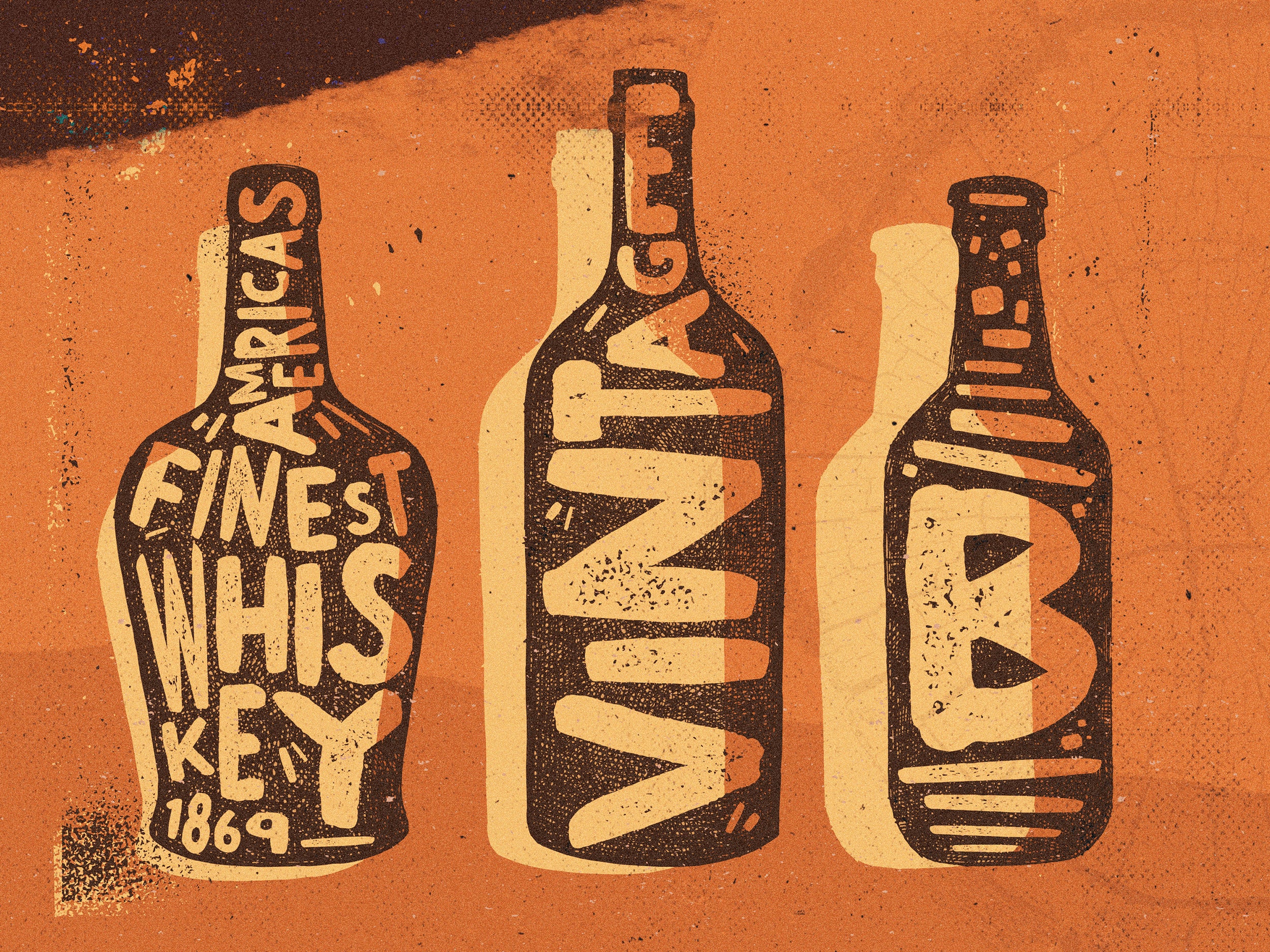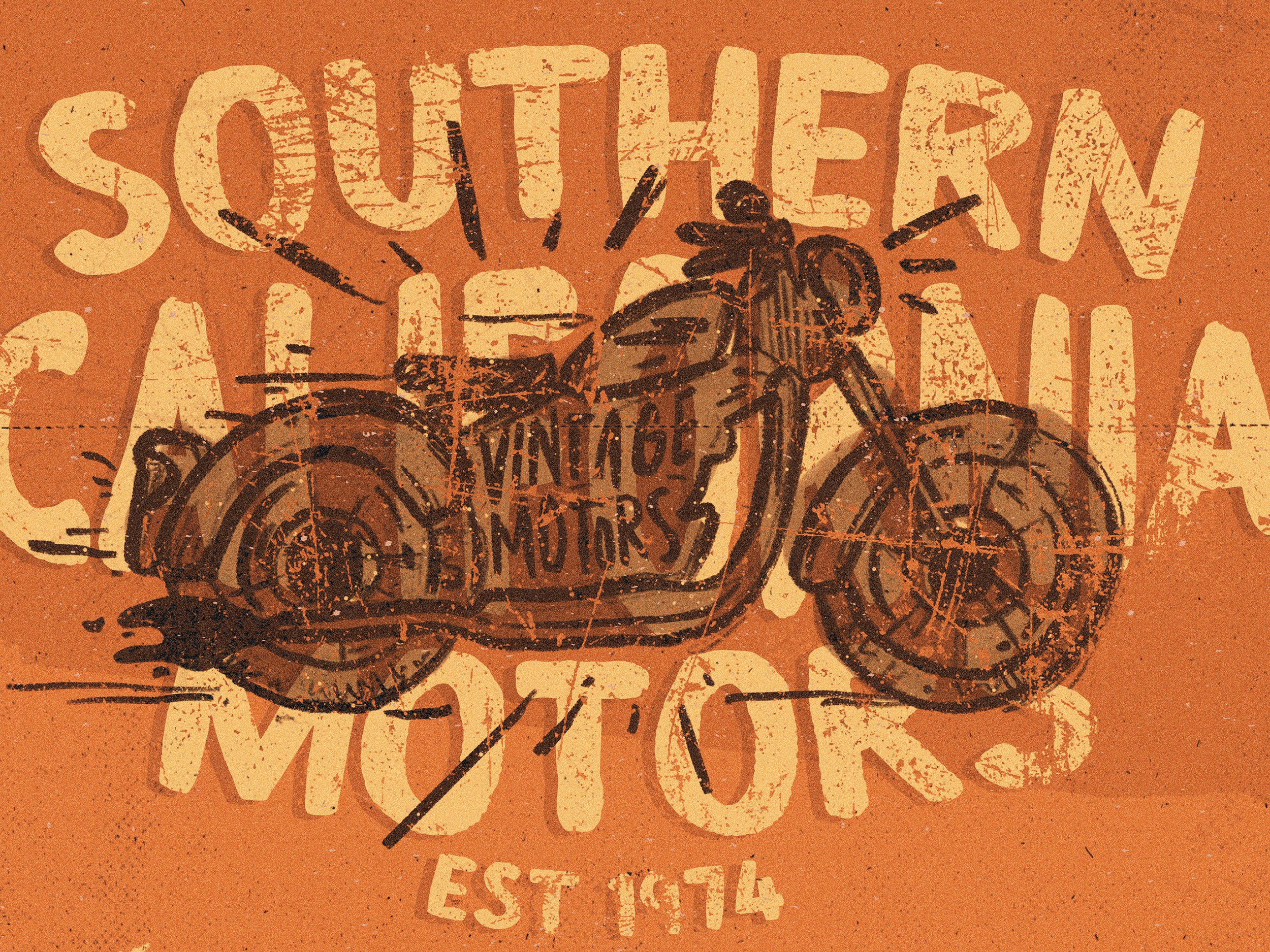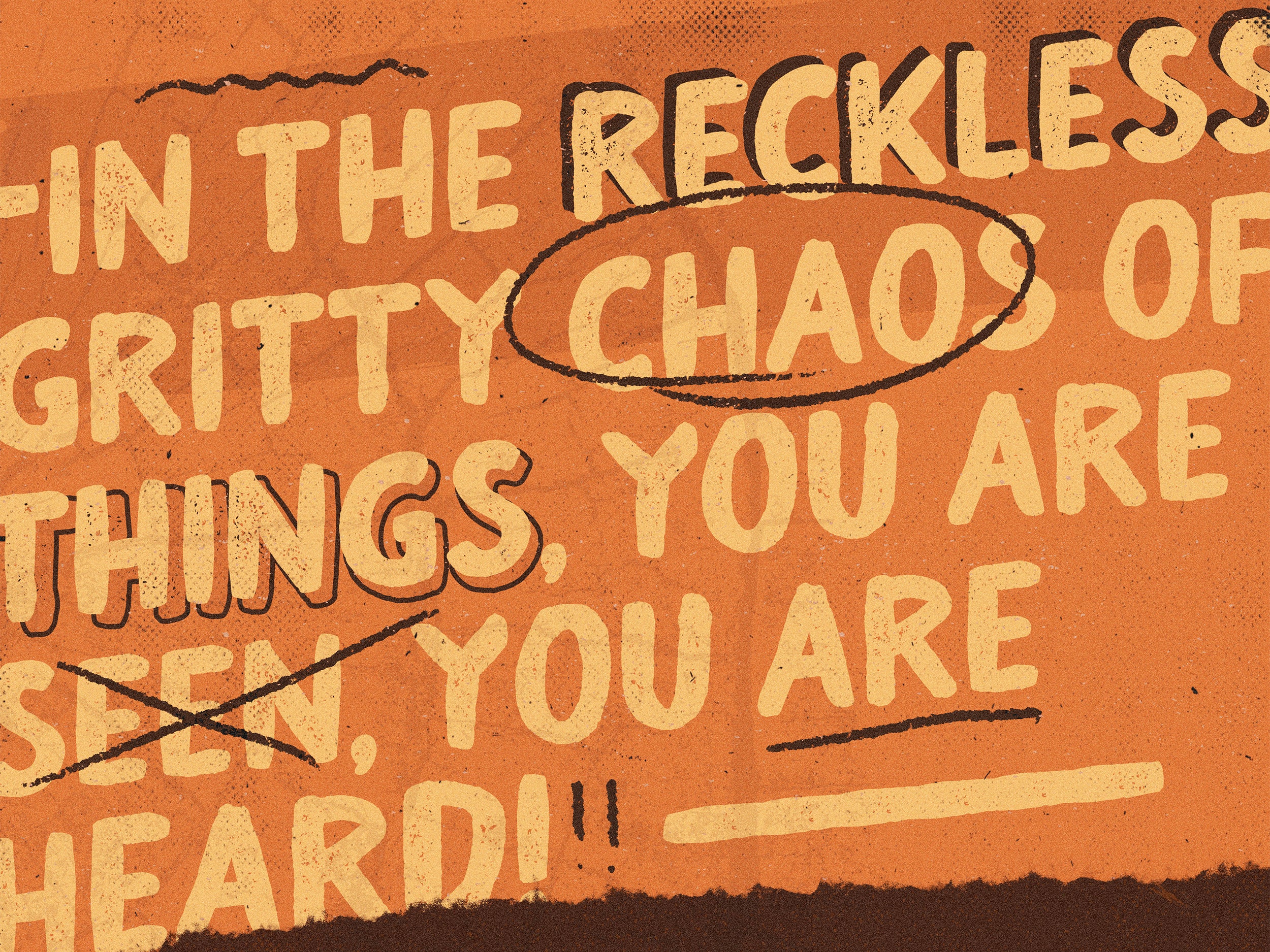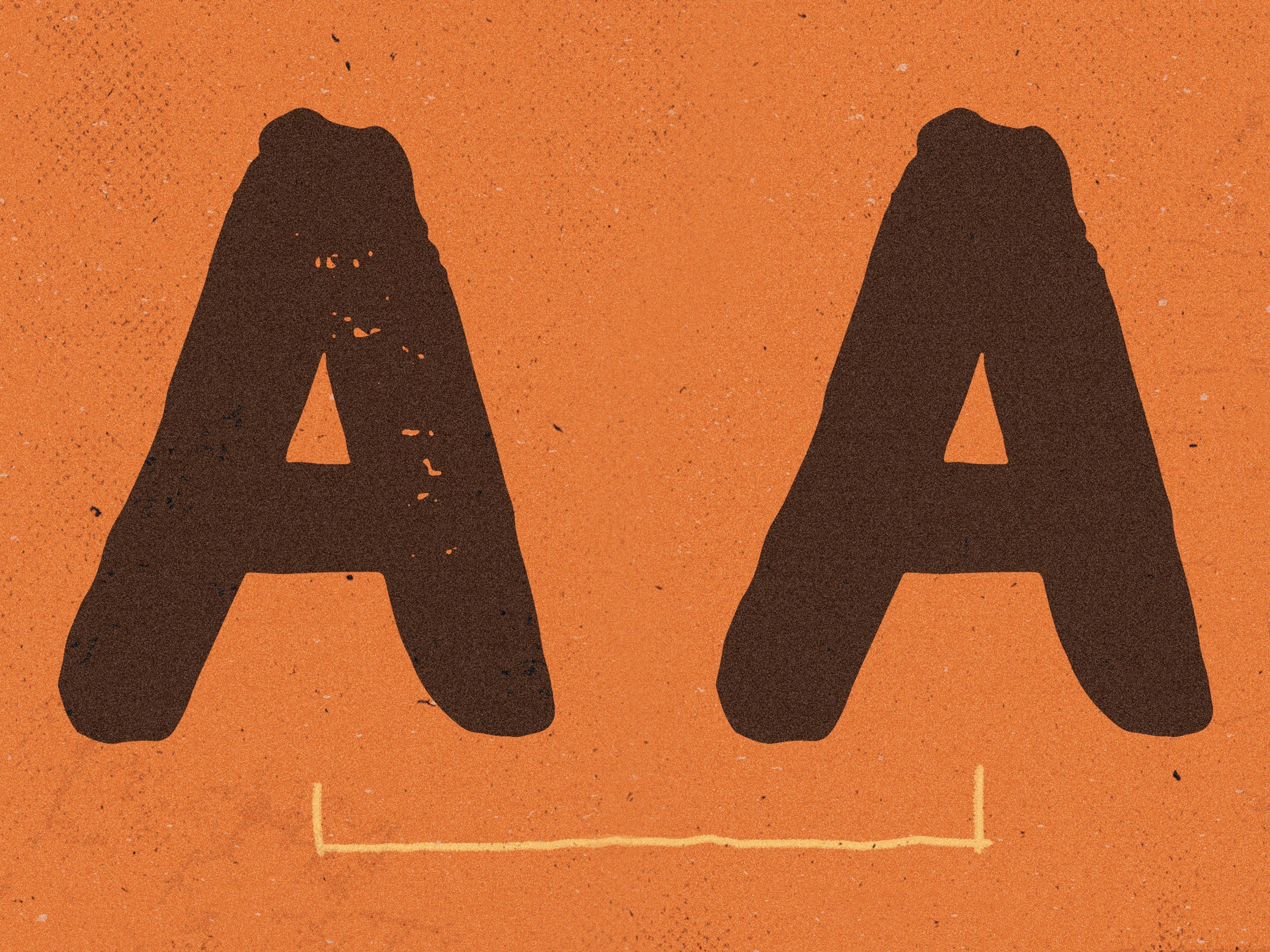
OAKWOOD FONT
Introducing Oakwood Press Font Duo.
Oakwood Press is an all caps font duo made entirely by hand to give that hand-crafted finish and vintage aesthetic. Oakwood Press comes with a pressed version which has a hand made subtle grain texture and a solid version, simulating a letterpress/linocut effect!